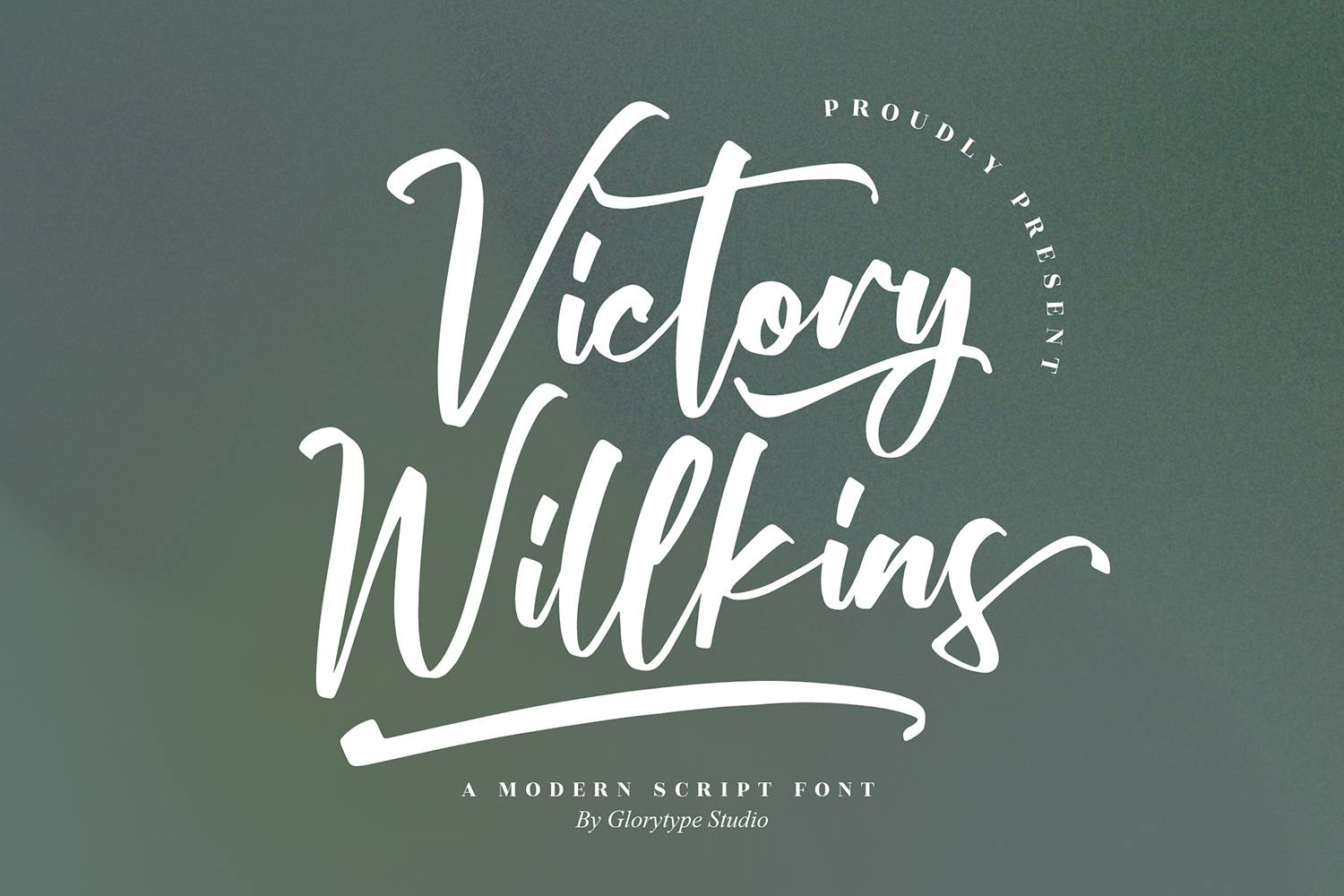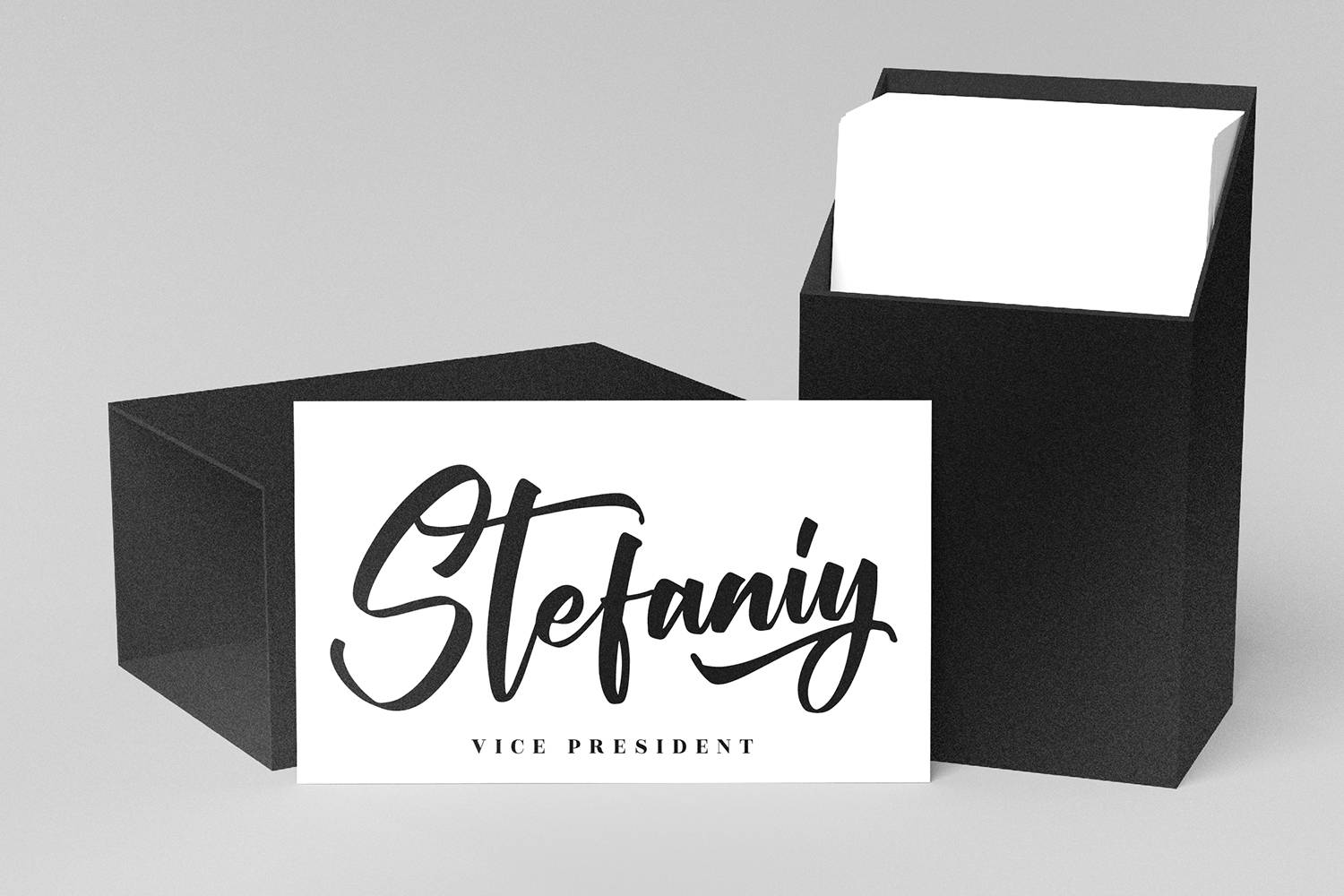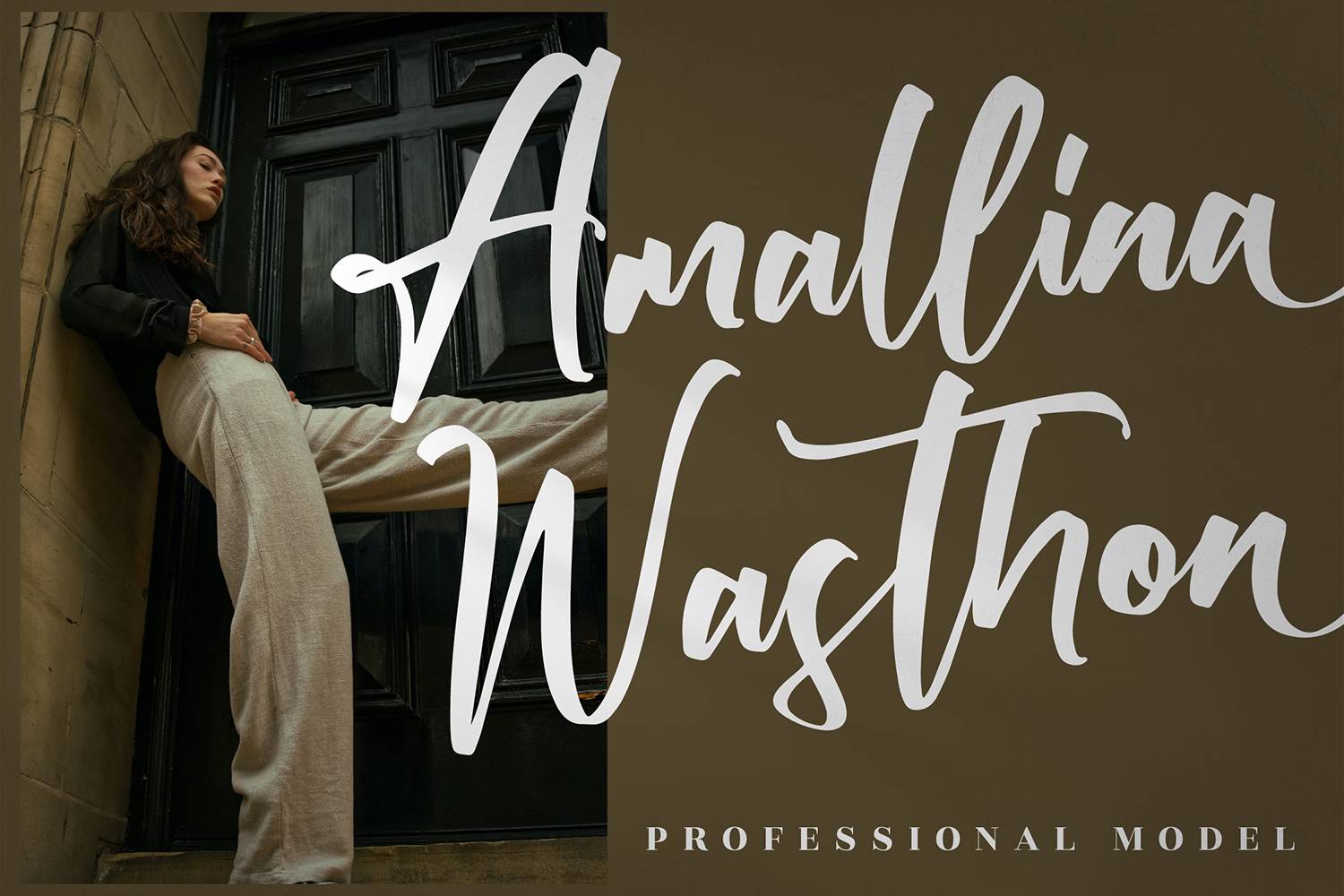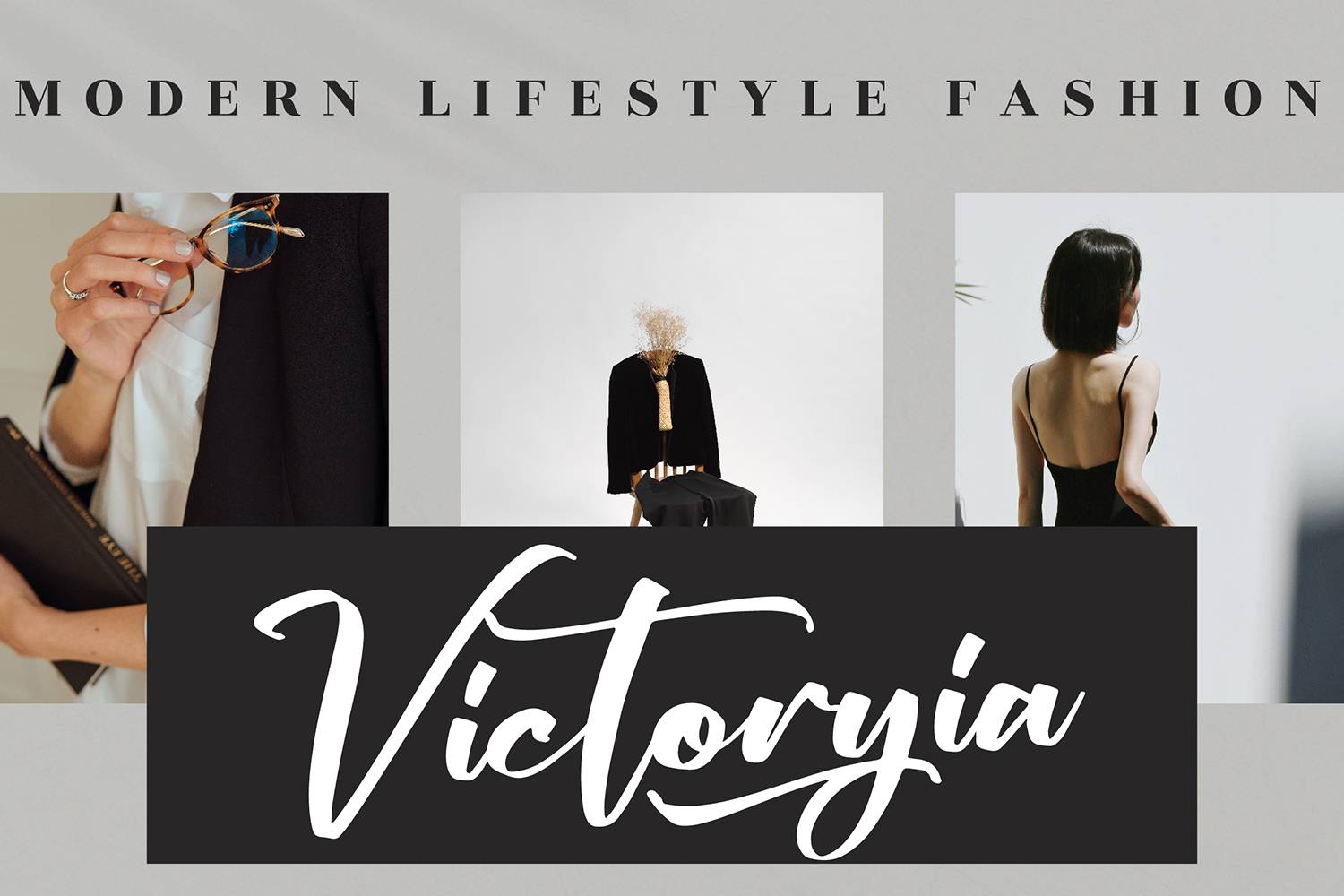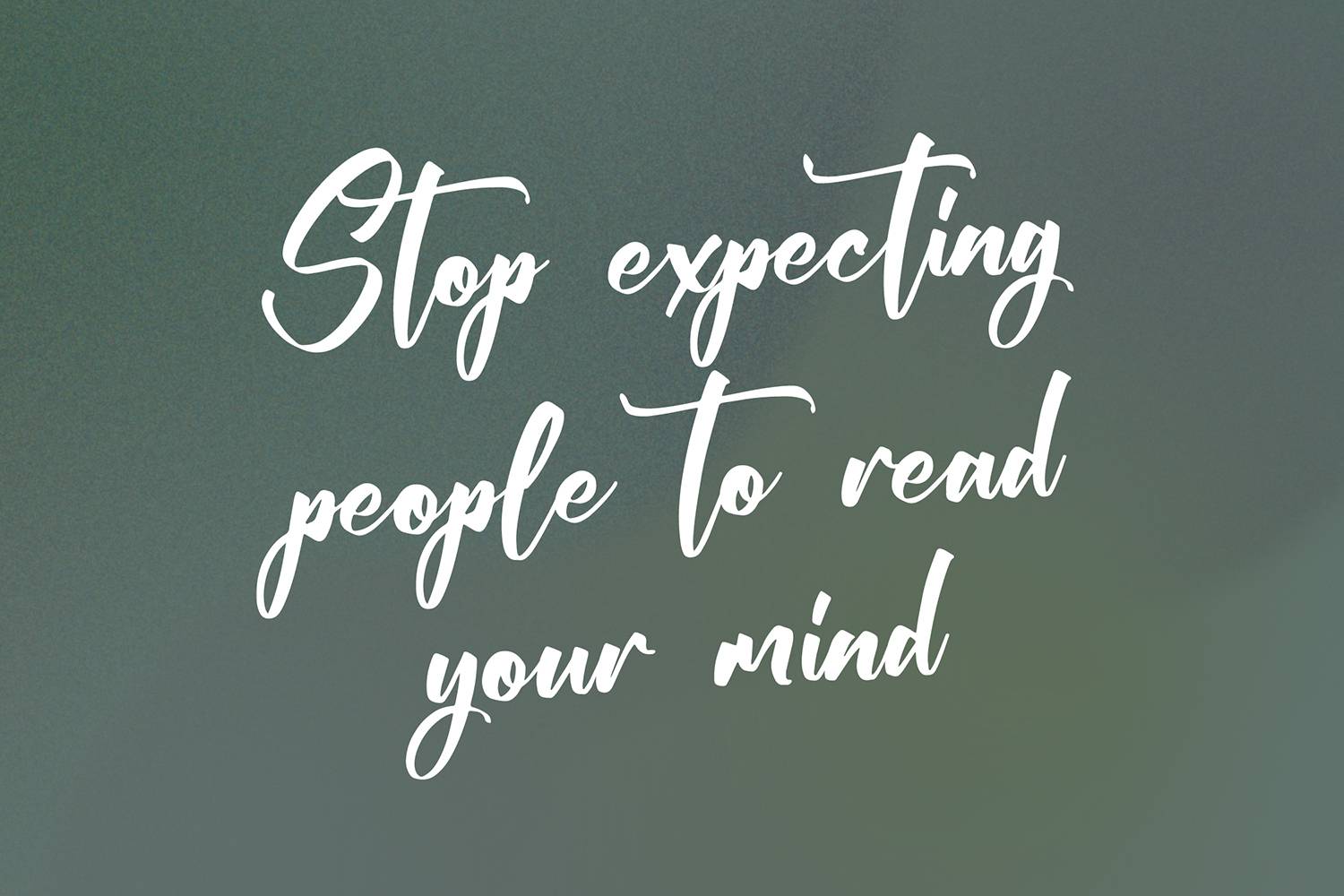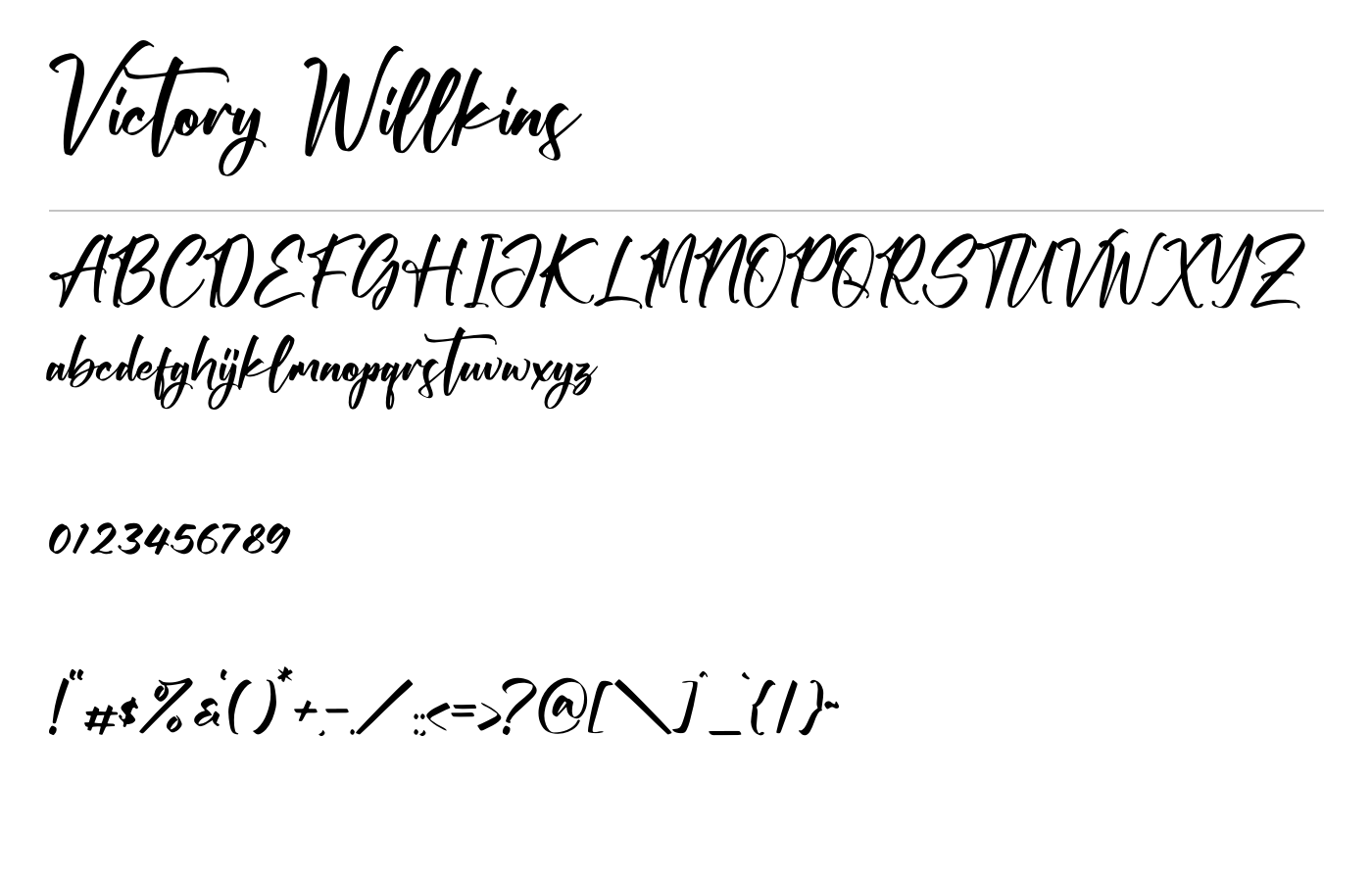
Victory Willkins is an elegant script font with a lively, hand-lettered feel that combines smooth curves and dynamic strokes. Its medium contrast and fluid letterforms make it perfect for adding a personal, artistic touch to invitations, branding, and headlines where a stylish yet approachable vibe is desired. This font shines in designs that seek to convey creativity and warmth with a modern flair.
Victory Willkins Font